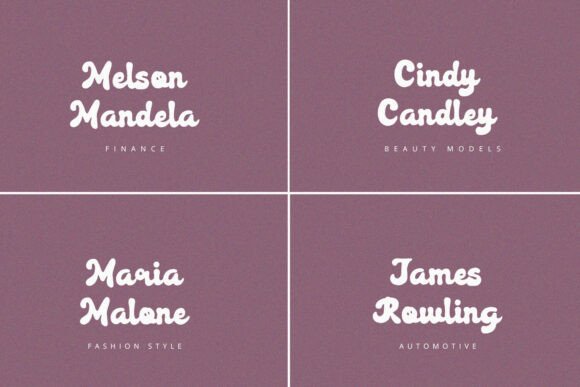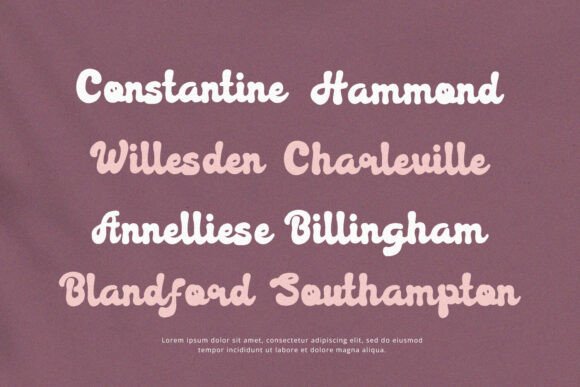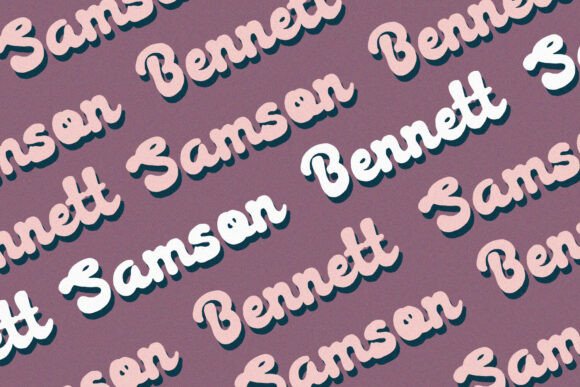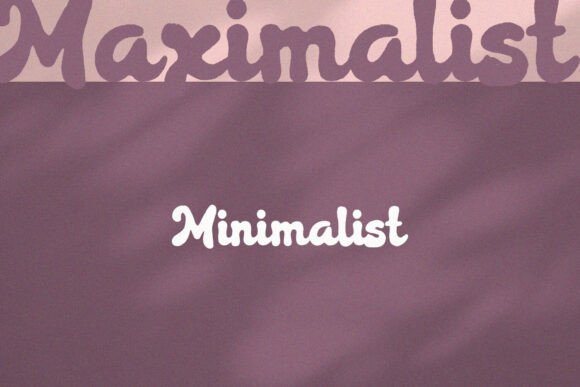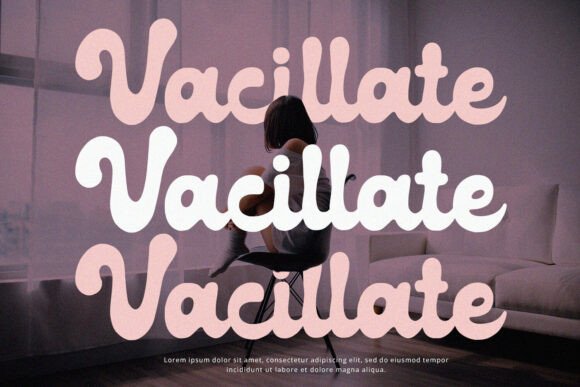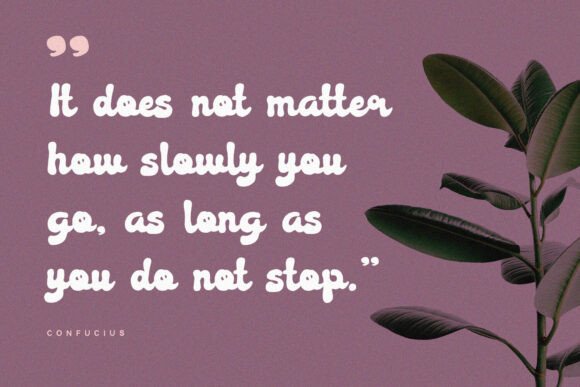
Ebullient Font: A Rough Script Font with Unique and Classic Feels
Are you a designer or crafter looking for a font that can add a touch of personality to your design projects? Look no further than Ebullient Font, a rough script font with a unique and classic feel. In this article, we’ll explore the features and benefits of Ebullient Font, and how it can be used to elevate your branding, logo design, lettering, and other design projects.
What is Ebullient Font?
Ebullient Font is a rough script font that is characterized by its irregular lines and classic feel. It’s a font that is both elegant and rustic, making it perfect for designers who want to add a touch of sophistication to their designs. The font is designed to be versatile and can be used for a wide range of design projects, from branding and logo design to lettering and packaging.
Key Features of Ebullient Font
So, what makes Ebullient Font so special? Here are some of its key features:
- Unique and Classic Feel: Ebullient Font has a unique and classic feel that sets it apart from other fonts. Its irregular lines and rough texture give it a distinctive look that is both elegant and rustic.
- Versatile: Ebullient Font is a versatile font that can be used for a wide range of design projects, from branding and logo design to lettering and packaging.
- Easy to Read: Despite its rough texture, Ebullient Font is easy to read, making it perfect for use in body text and other applications where legibility is important.
- High-Quality Design: Ebullient Font is designed to high standards, ensuring that it looks great in any design project.
Uses for Ebullient Font
So, how can you use Ebullient Font in your design projects? Here are some ideas:
- Branding: Ebullient Font is perfect for use in branding projects, such as logos, business cards, and letterheads.
- Logo Design: The font’s unique and classic feel makes it ideal for use in logo design projects.
- Lettering: Ebullient Font is great for use in lettering projects, such as hand-drawn signs and posters.
- Logotype: The font’s versatility makes it perfect for use in logotype projects, such as wordmarks and phrase marks.
- Clothing: Ebullient Font can be used to create custom clothing designs, such as t-shirts and hoodies.
- Posters and Magazines: The font’s classic feel makes it perfect for use in posters and magazines.
- Packaging: Ebullient Font can be used to create eye-catching packaging designs, such as labels and product packaging.
- Shopping Bags: The font’s unique feel makes it perfect for use in shopping bag designs.
- T-Shirts and Book Covers: Ebullient Font can be used to create custom t-shirt and book cover designs.
- Photography and Special Events: The font’s classic feel makes it perfect for use in photography and special events, such as weddings and parties.
Benefits of Using Ebullient Font
So, why should you use Ebullient Font in your design projects? Here are some benefits:
- Unique Look: Ebullient Font has a unique look that sets it apart from other fonts.
- Versatility: The font’s versatility makes it perfect for use in a wide range of design projects.
- Elegant and Rustic: Ebullient Font’s elegant and rustic feel makes it perfect for designers who want to add a touch of sophistication to their designs.
- Easy to Read: The font’s ease of readability makes it perfect for use in body text and other applications where legibility is important.
In conclusion, Ebullient Font is a rough script font with a unique and classic feel that makes it perfect for use in a wide range of design projects. Its versatility, elegance, and rustic feel make it a great choice for designers who want to add a touch of sophistication to their designs. Whether you’re working on a branding project, logo design, lettering, or packaging, Ebullient Font is a great choice.
So, why not give Ebullient Font a try? With its high-quality design and ease of use, it’s the perfect addition to any design project.